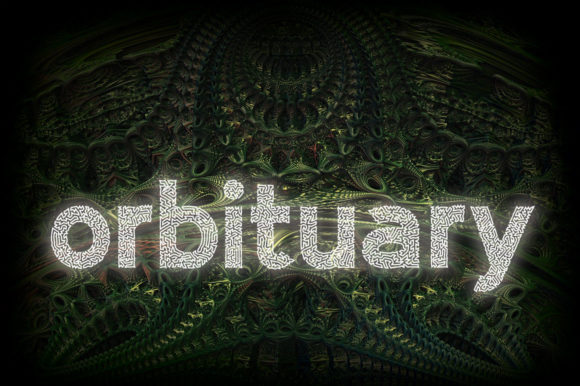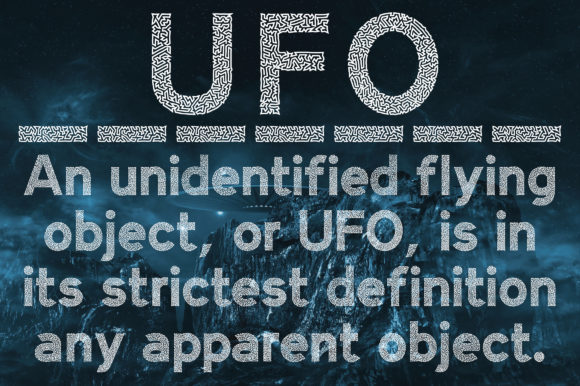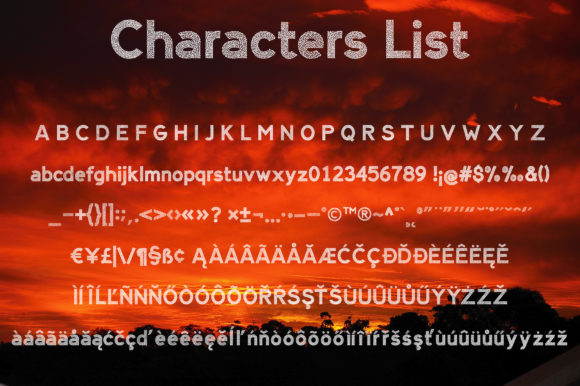
Introducing Alien X Sign Font: Elevate Your Designs to Futuristic Heights
Are you tired of using the same old fonts in your designs? Do you want to add a touch of futurism and uniqueness to your creative projects? Look no further than the Alien X Sign Font. This display font is designed to transport your designs to a futuristic world, making them stand out from the crowd. In this article, we’ll dive into the features and benefits of Alien X Sign Font, and explore how it can elevate your designs to new heights.
What is Alien X Sign Font?
Alien X Sign Font is a unique display font that boasts an incredibly futuristic feel. Its design is inspired by the futuristic and sci-fi themes, making it perfect for projects that require a touch of otherworldliness. The font features sleek lines, geometric shapes, and a bold aesthetic that is sure to grab attention.
Key Features of Alien X Sign Font
- Unique and Futuristic Design: Alien X Sign Font has a distinct and futuristic look that sets it apart from other fonts.
- Display Font: This font is specifically designed for display purposes, making it perfect for headlines, titles, and other attention-grabbing elements.
- Geometric Shapes: The font features geometric shapes and sleek lines, giving it a modern and edgy feel.
- Easy to Read: Despite its futuristic design, Alien X Sign Font is easy to read, making it perfect for use in a variety of applications.
Benefits of Using Alien X Sign Font
So, why should you use Alien X Sign Font in your designs? Here are just a few benefits:
- Adds a Touch of Futurism: Alien X Sign Font instantly adds a touch of futurism to your designs, making them stand out from the crowd.
- Increases Visual Impact: The font’s bold and geometric design makes it perfect for grabbing attention and increasing visual impact.
- Versatile: Alien X Sign Font can be used in a variety of applications, from posters and flyers to digital graphics and branding.
- Easy to Pair: The font pairs well with a variety of other fonts, making it easy to incorporate into your existing design workflow.
- Use it as a Headline Font: Alien X Sign Font is perfect for use as a headline font, grabbing attention and setting the tone for your design.
- Experiment with Colors: The font looks great in a variety of colors, so don’t be afraid to experiment and find the perfect hue for your design.
- Pair it with Other Fonts: Alien X Sign Font pairs well with a variety of other fonts, so try pairing it with a sans-serif font for a bold and modern look.